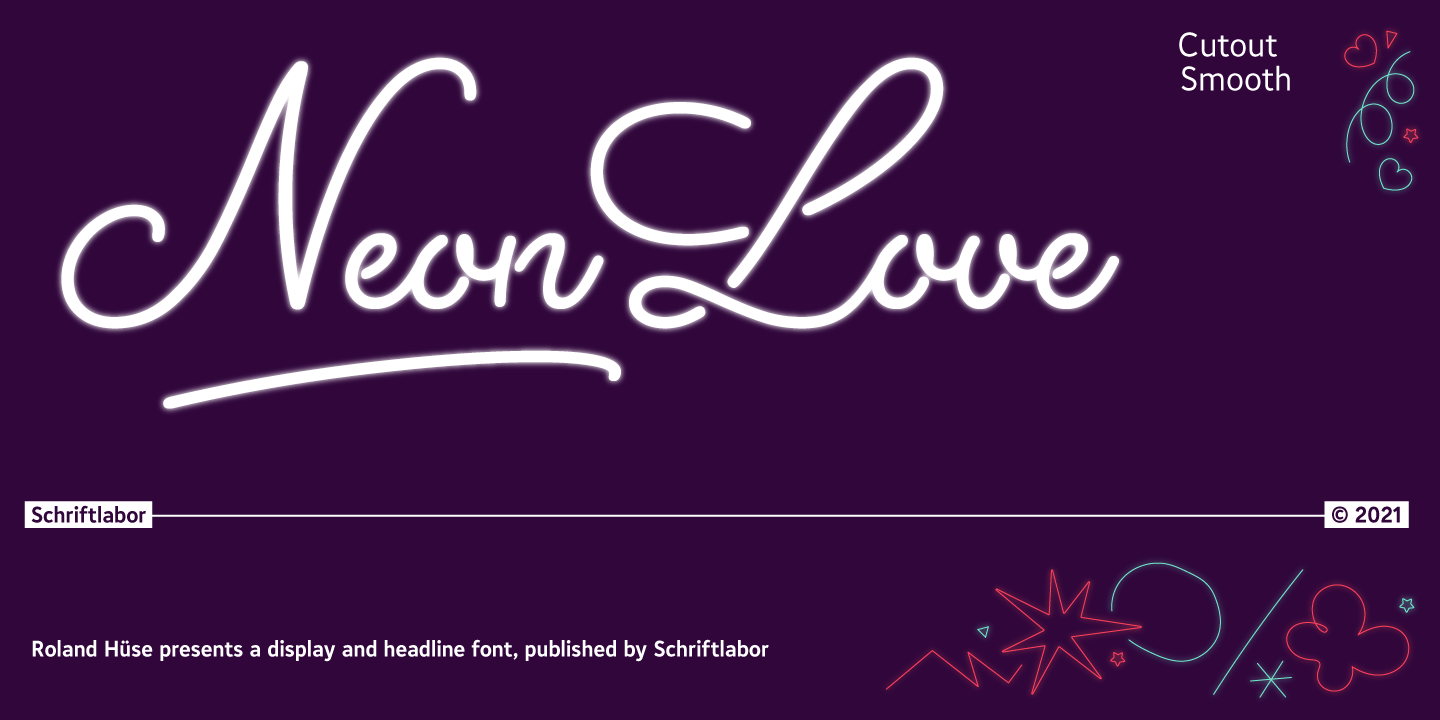
NEON Love Font is perfect for nightclub branding, retro-futuristic designs, electric music festival posters, neon sign reproductions, cyberpunk-themed projects, nightlife event promotions, synthwave album covers, and vibrant digital art installations.
What makes NEON Love Font exciting is its electrifying ability to recreate the mesmerizing glow and vibrant energy of authentic neon signage. This spectacular typeface combines retro aesthetics with contemporary digital precision, creating letters that pulse with electric vitality and nostalgic charm. The font's luminous character details and neon-inspired effects make it an essential tool for designers seeking to capture the magnetic appeal of urban nightlife and retro-futuristic atmospheres.
NEON Love Font family includes Regular, Bold, Light, Glow, Outline, and Shadow variations, plus electric effect elements and neon tube connectors. Each style maintains the font's electric character while providing comprehensive flexibility for creating dynamic illuminated design systems and authentic neon-style communications.
Nightlife and retro design specialists consistently choose NEON Love Font Free Download for projects requiring authentic neon aesthetics and electric visual impact. This remarkable typeface has gained recognition among entertainment venues, music producers, and digital artists worldwide. The font's ability to convey excitement and electric energy makes it perfect for brands operating in entertainment, nightlife, and retro-futuristic markets.
The design philosophy behind NEON Love Font emphasizes electric authenticity and retro-futuristic appeal. Its letterforms feature carefully crafted glow effects and precise construction that mirrors actual neon tube bending techniques. The font's distinctive elements include realistic light diffusion patterns and electric connection details that create immediate visual connection with audiences seeking authentic neon experiences.
Creative agencies specializing in entertainment and retro branding frequently select NEON Love Font for clients requiring electric visual communication and nightlife authenticity. The font's versatility allows seamless integration into comprehensive entertainment branding systems, from club promotions to music industry campaigns, ensuring consistent brand personality across all electric and neon-themed touchpoints.
The technical execution of NEON Love Font demonstrates advanced understanding of digital neon effects and retro typography requirements. Optimized for both print and digital applications, the font includes extensive OpenType features that support electric design workflows. The comprehensive character set and effect library make it suitable for international entertainment campaigns requiring authentic neon typography with global electric appeal.